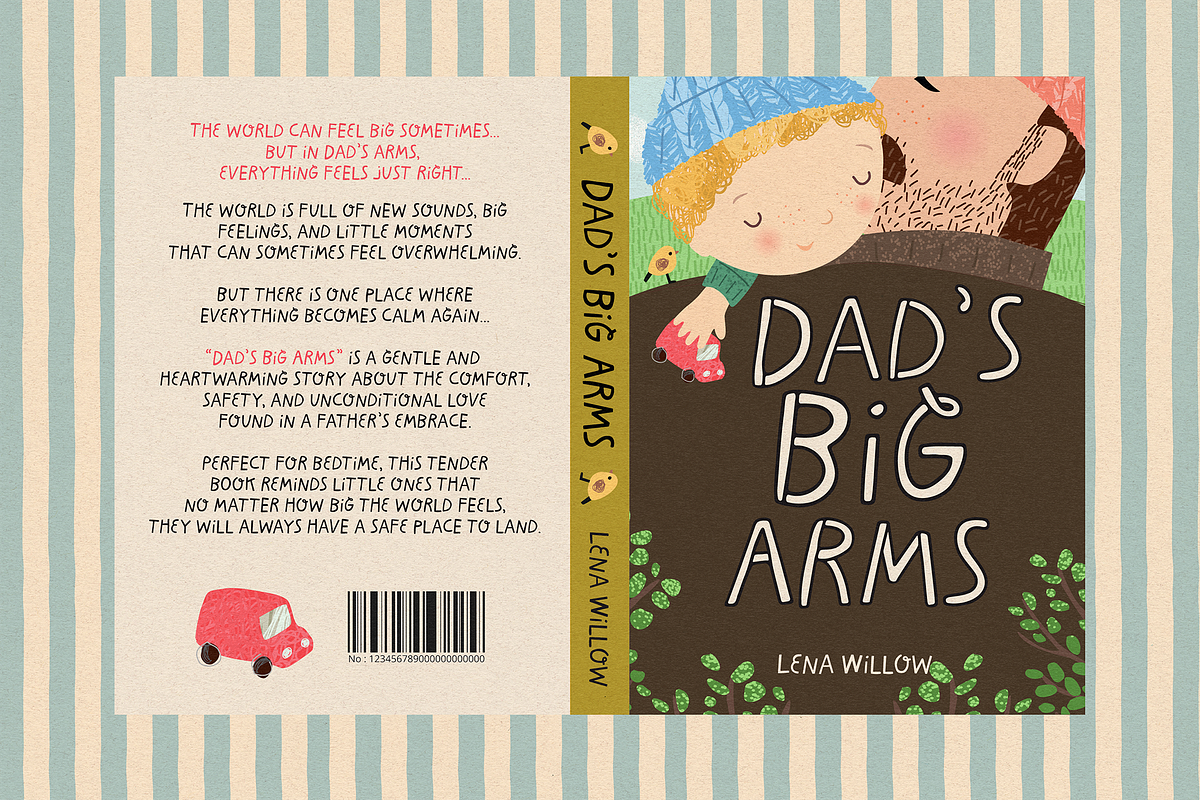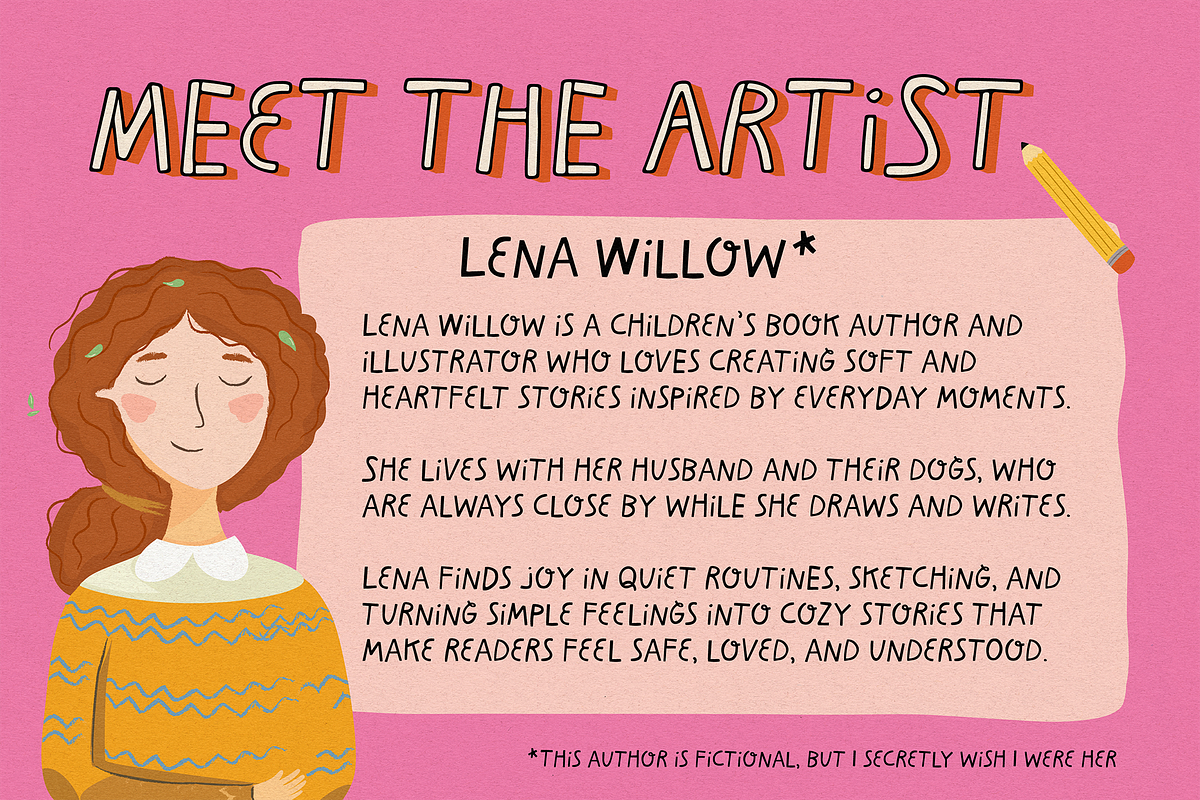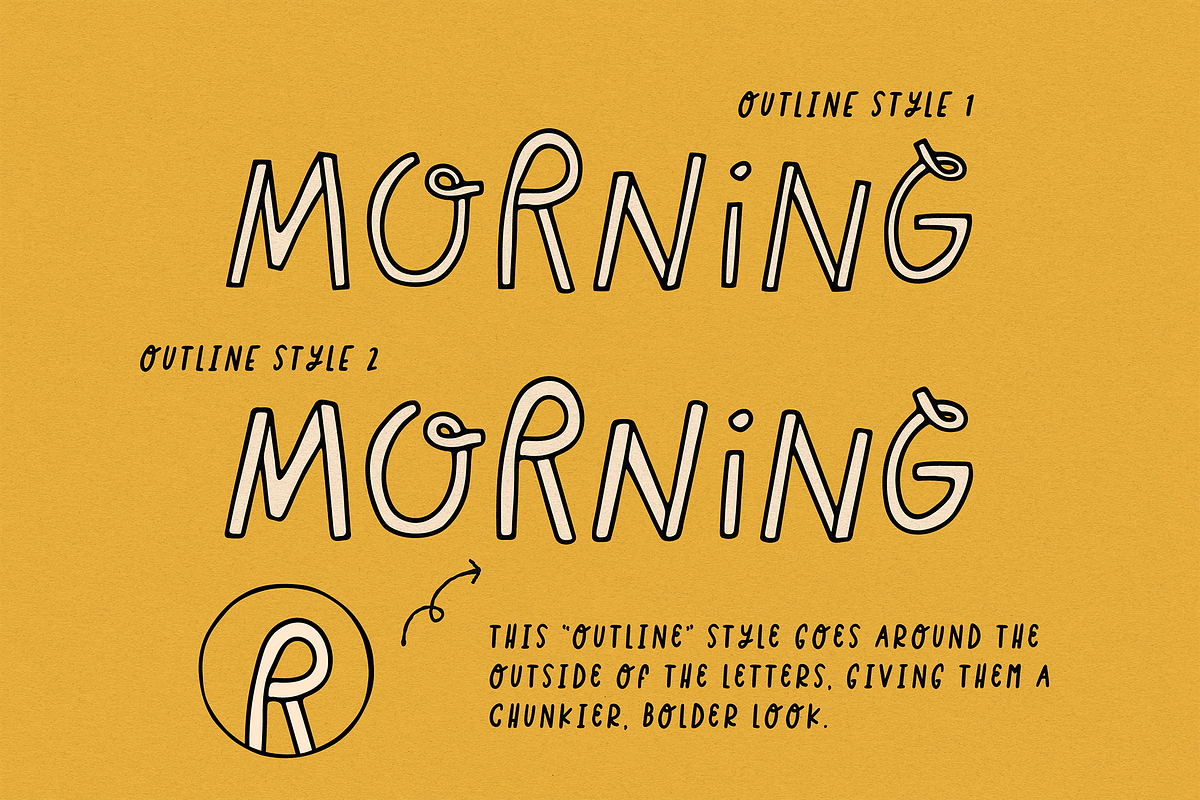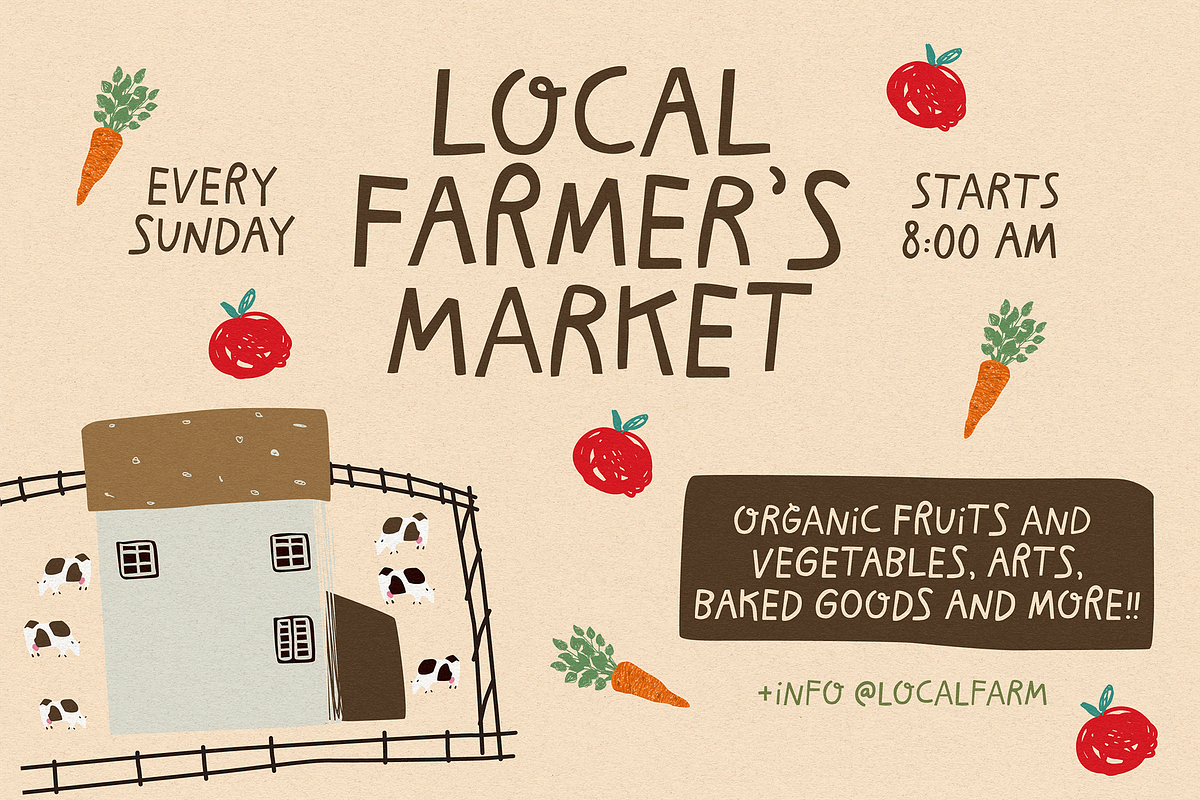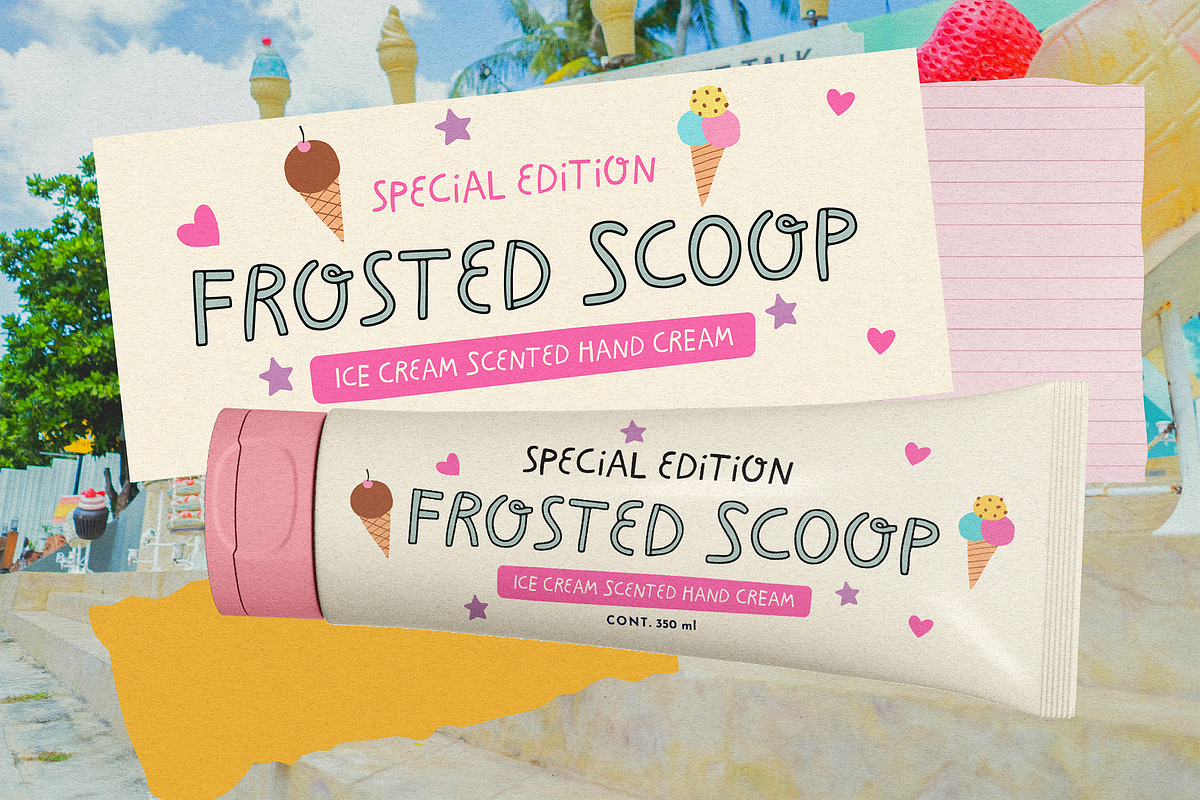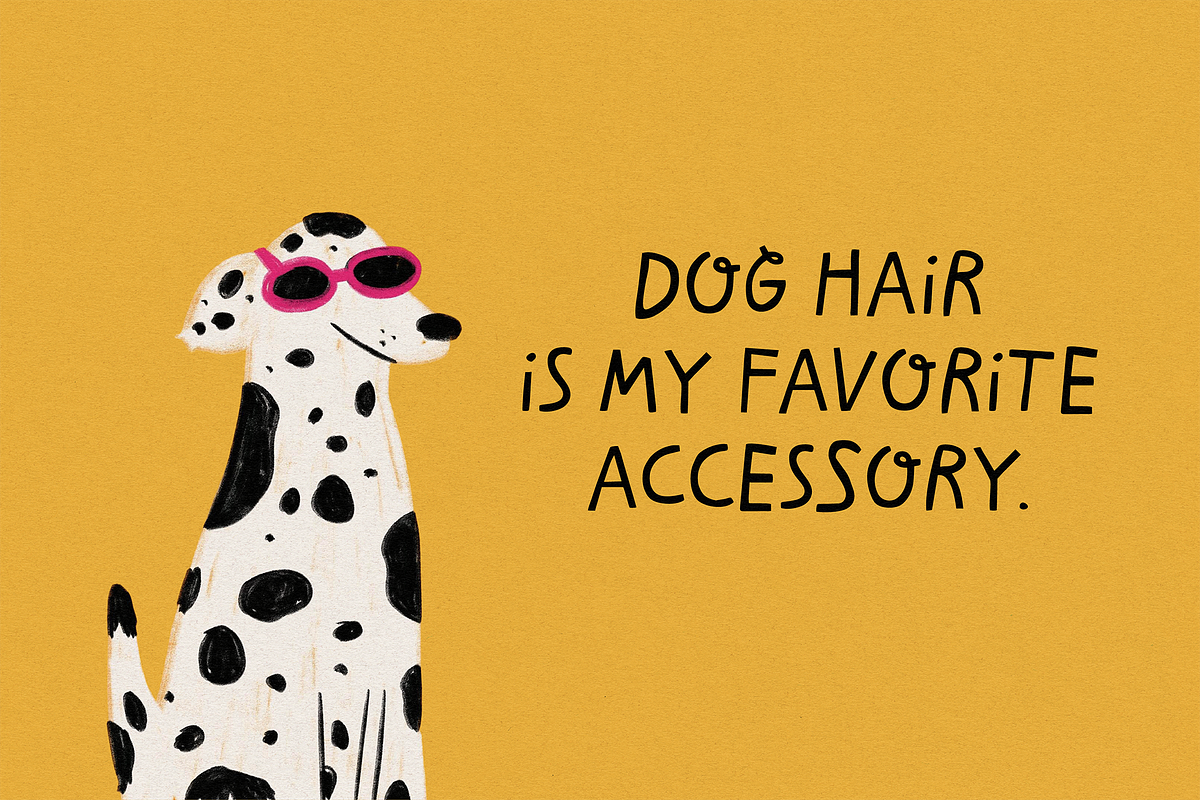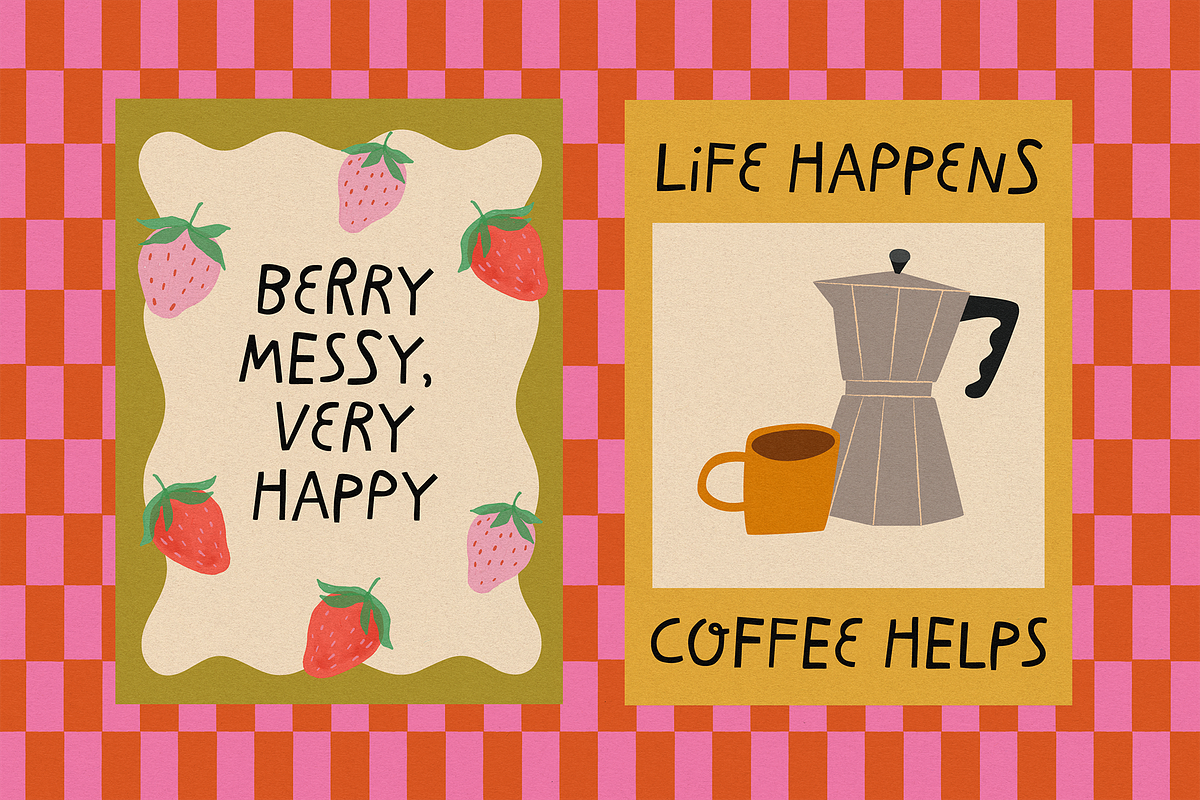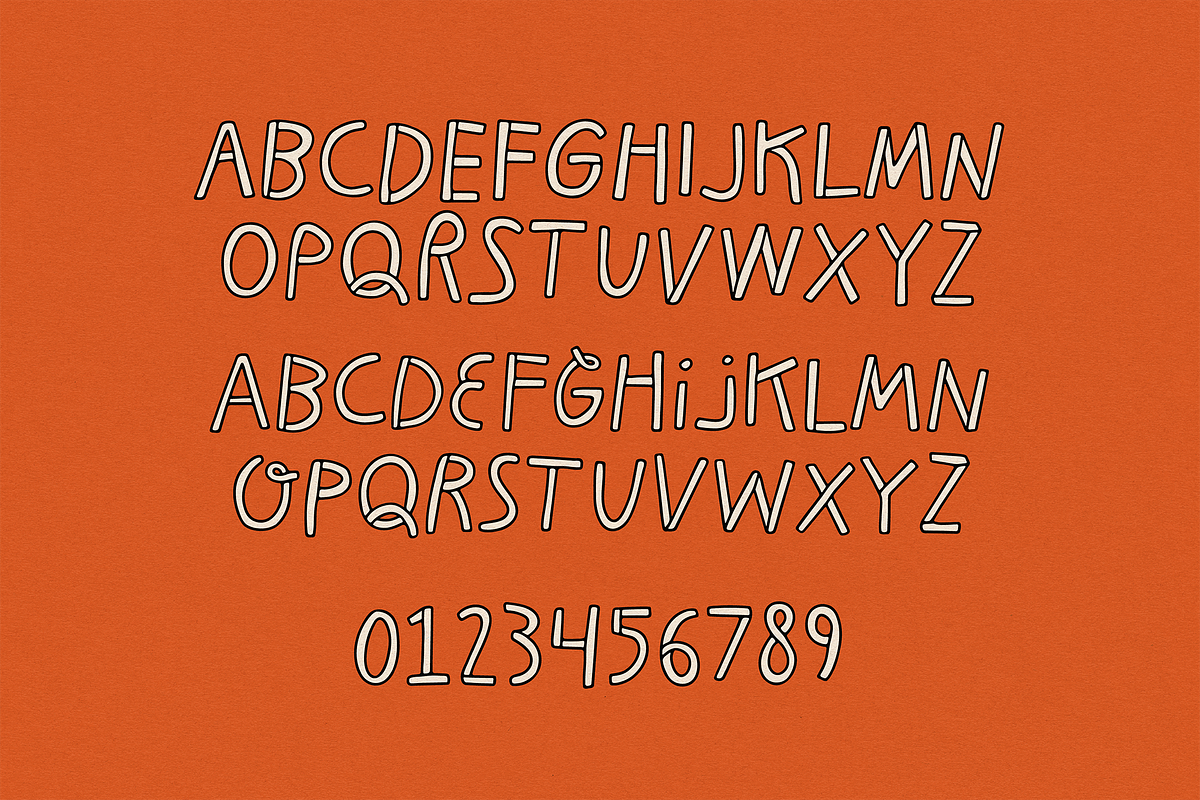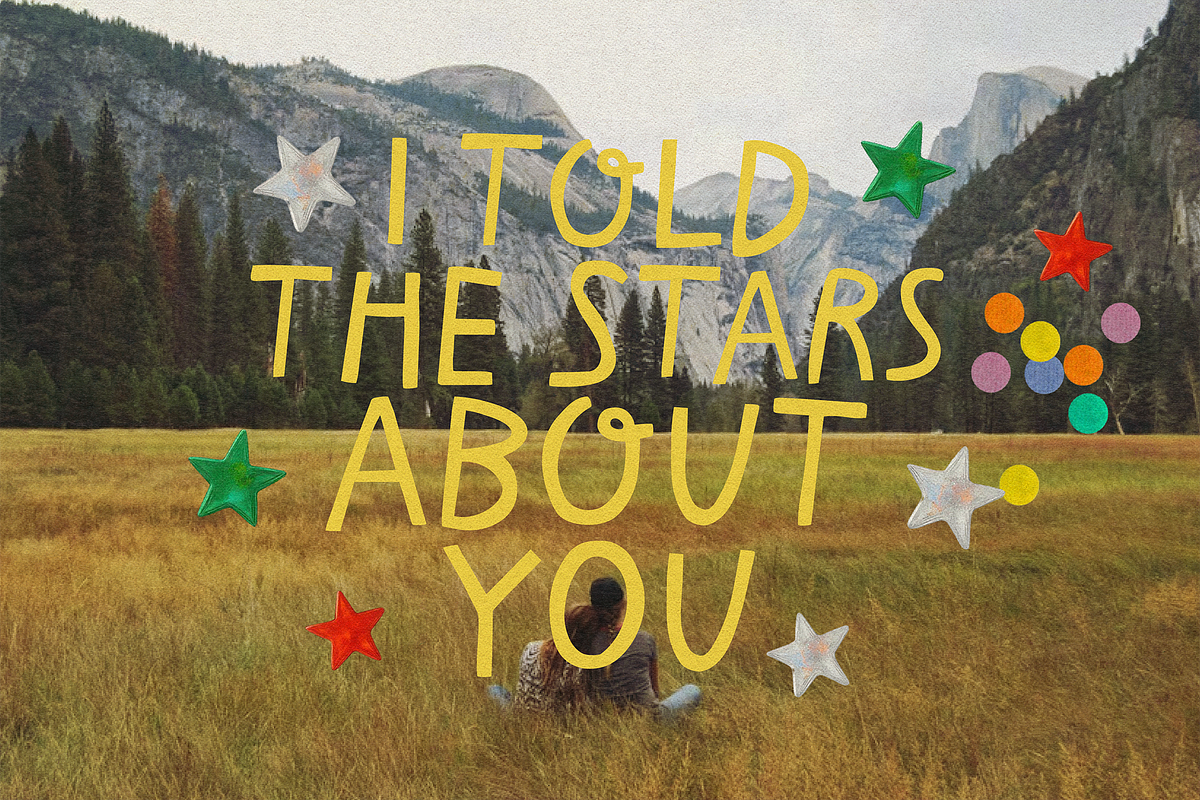
THE MORNING CLUB | PLAYFUL COOL FONT
The Morning Club is a funky, playful, hand drawn font with a perfectly imperfect vibe. It’s organic, irregular, and effortlessly cool, making it ideal for eye catching titles, quotes, illustrations, book covers, stickers, and more.
This font comes with 3 versatile styles, a solid filled version plus two outline options. The inner outline keeps a similar weight to the filled style, while the outer outline creates a bolder, chunkier look. These variations give you extra flexibility to mix styles and create fun, dynamic designs.
The filled version works great for slightly longer text, while combining styles is perfect for short, playful phrases with personality.
For best results, mix uppercase and lowercase to achieve a more unique and expressive look.
✷ To get the extra characters just type:
Left curly bracket { – heart lowercase “i”
Right curly bracket } – heart lowercase “j”